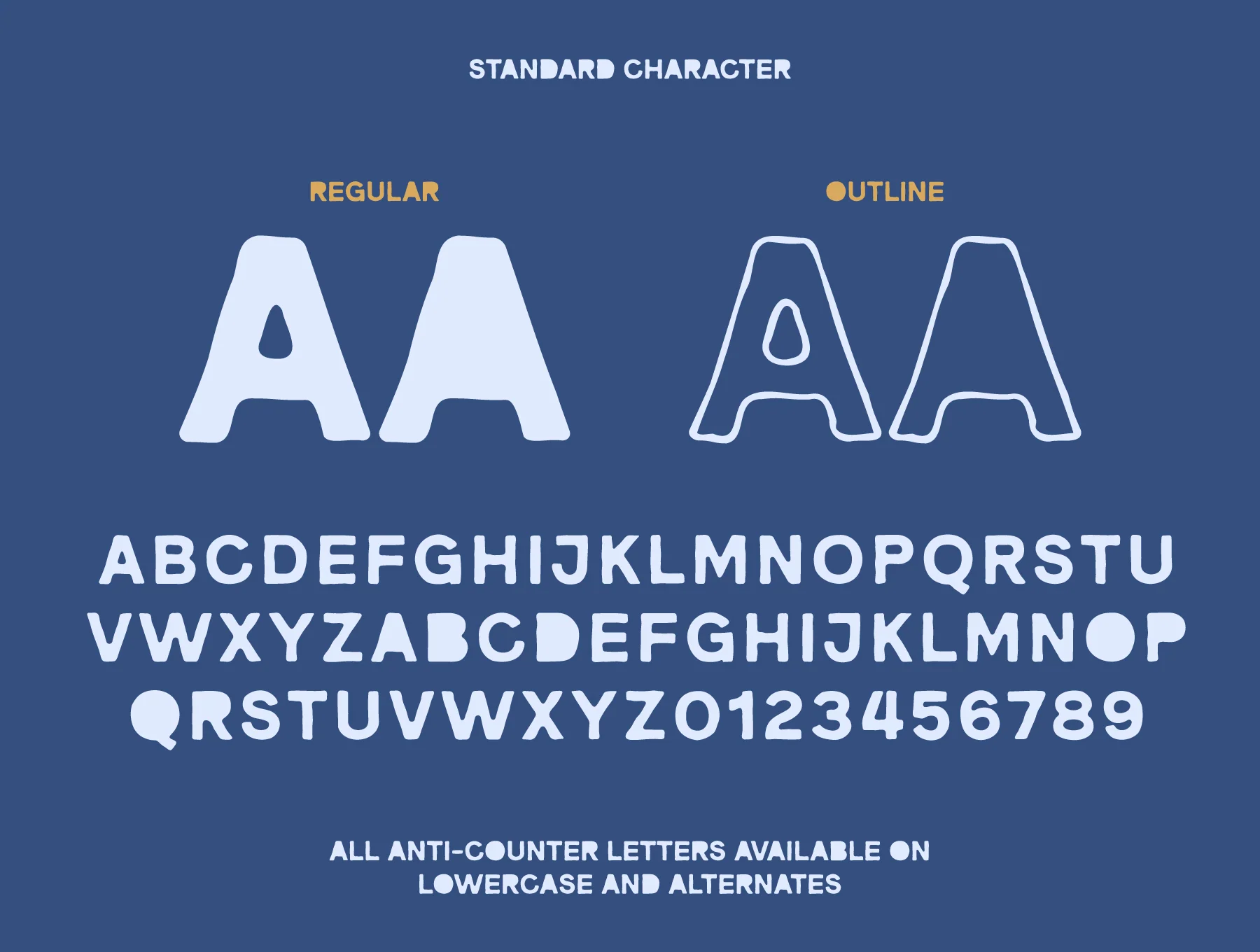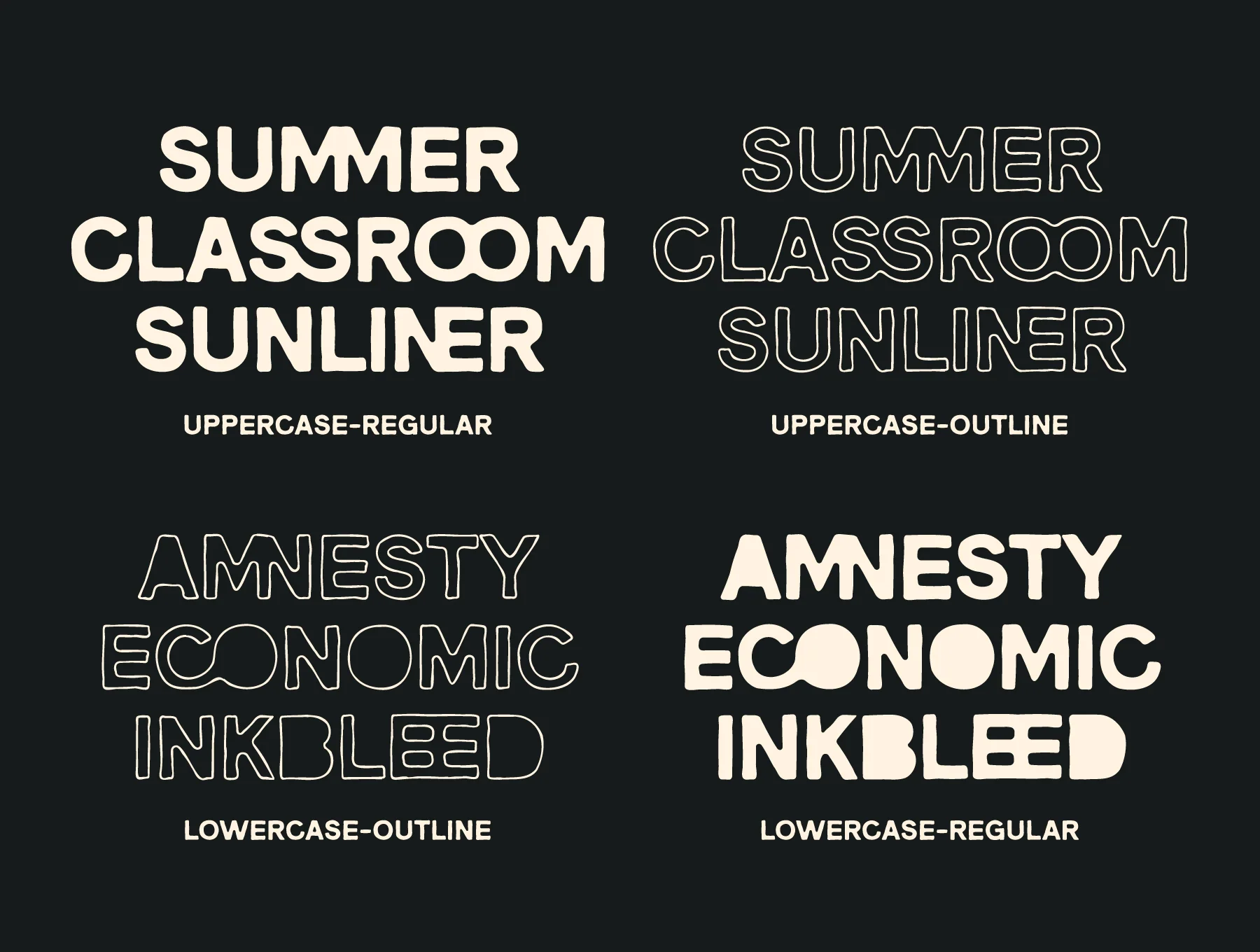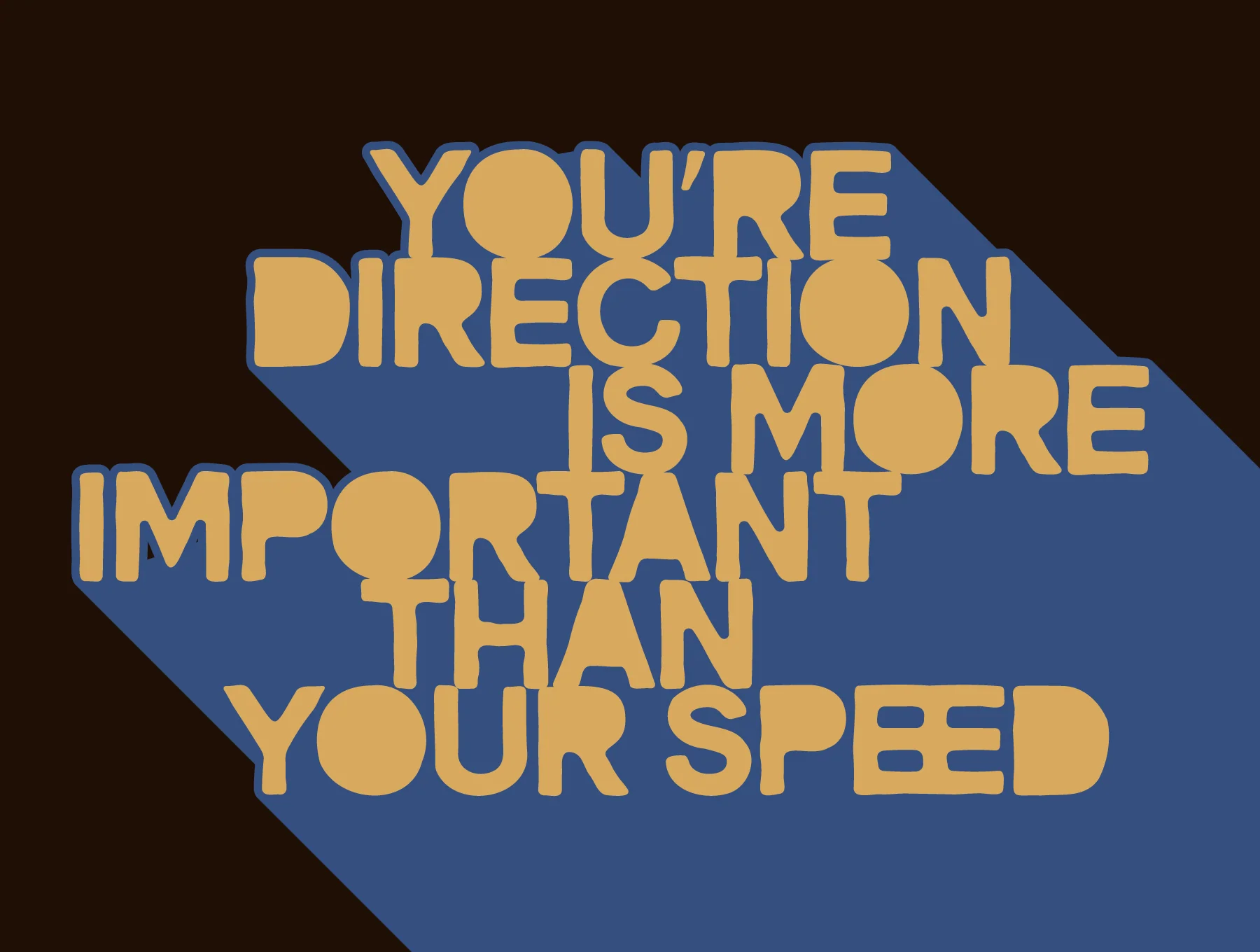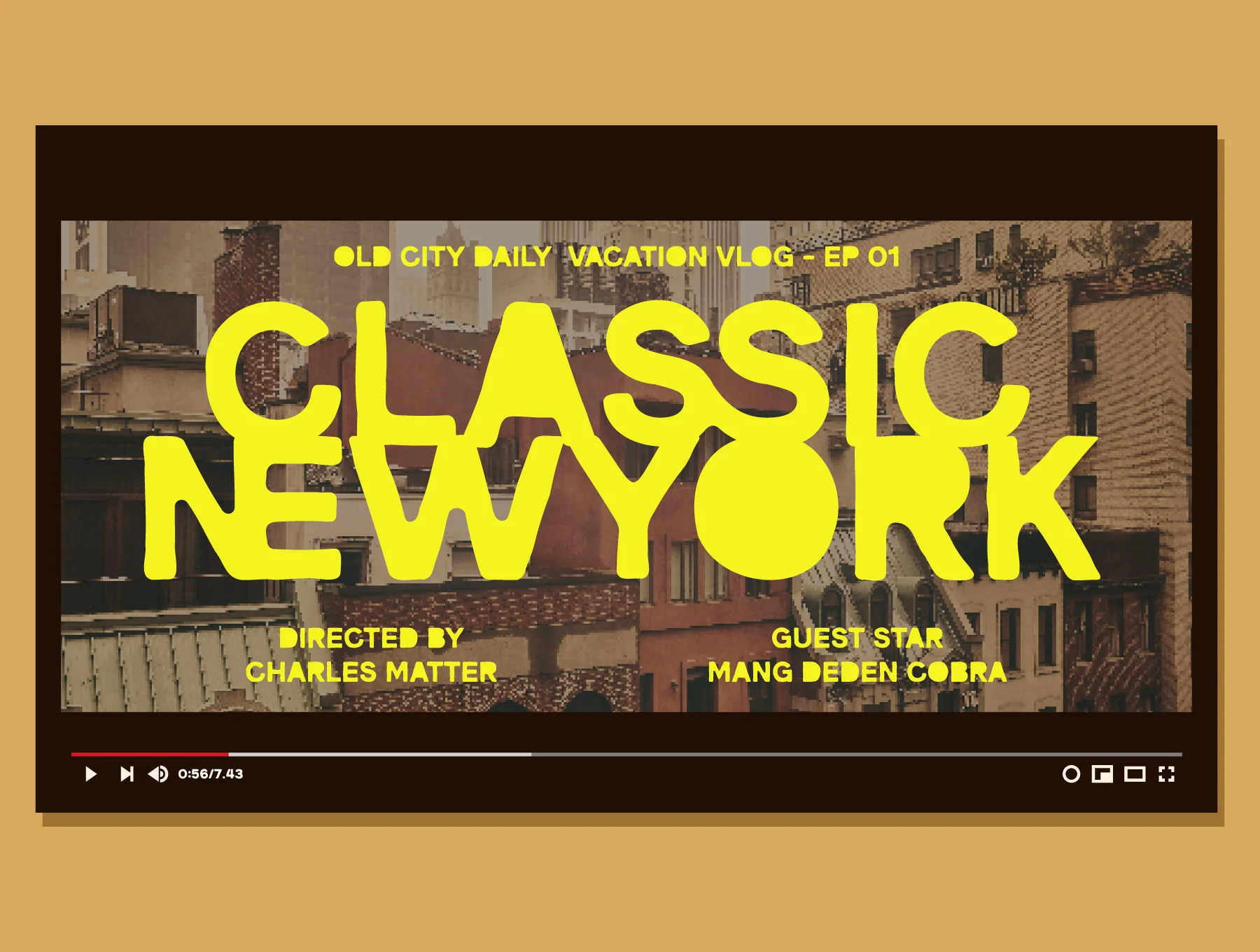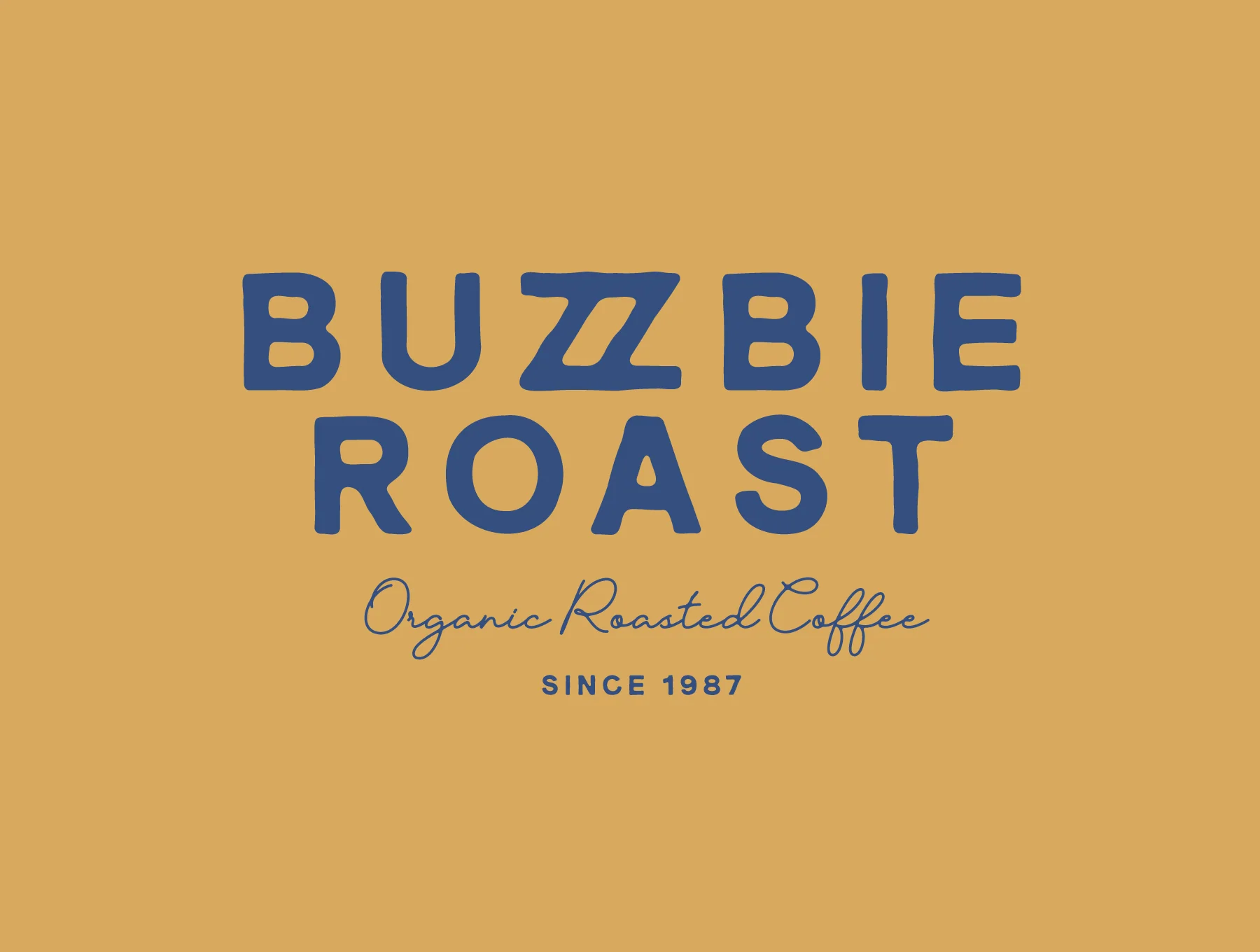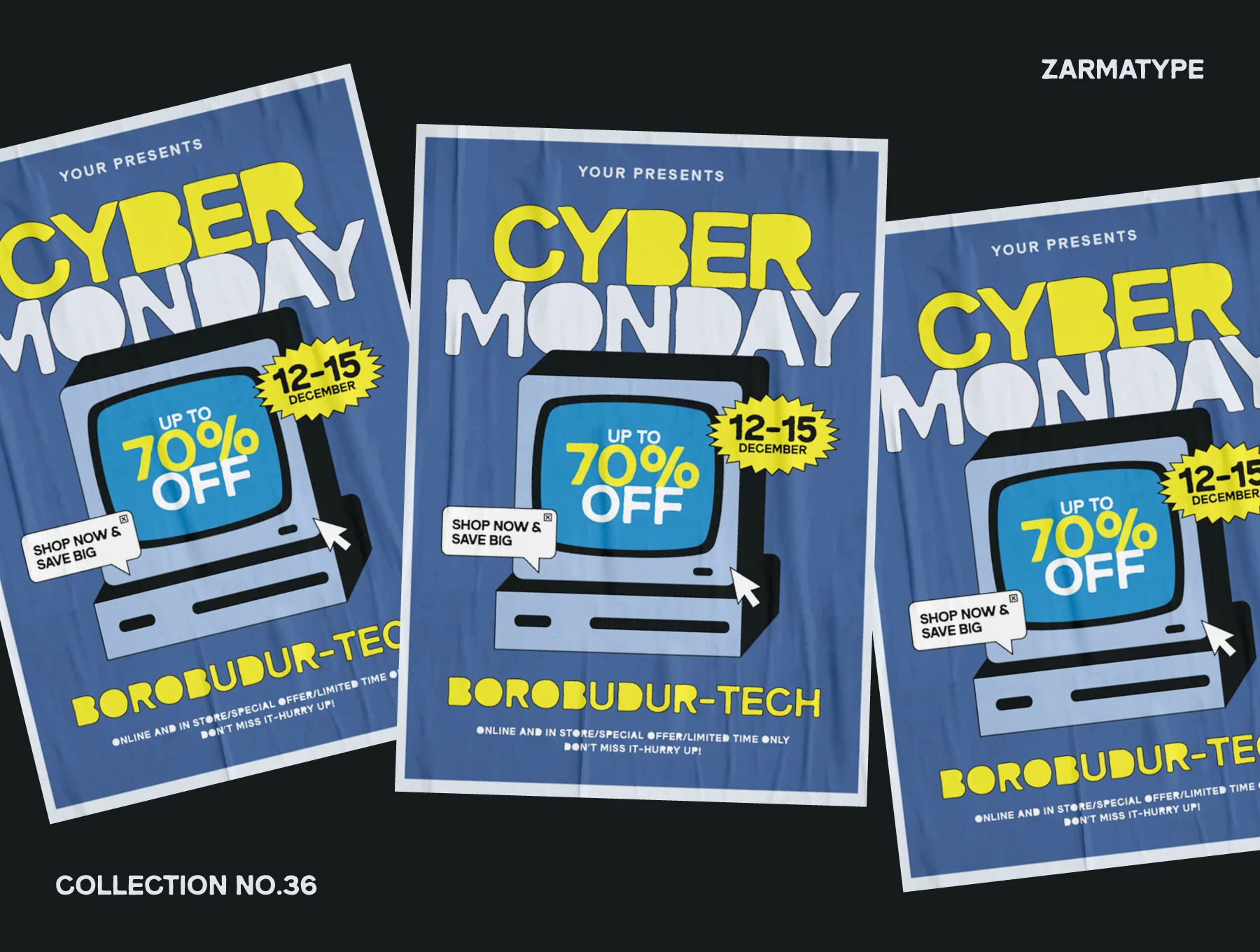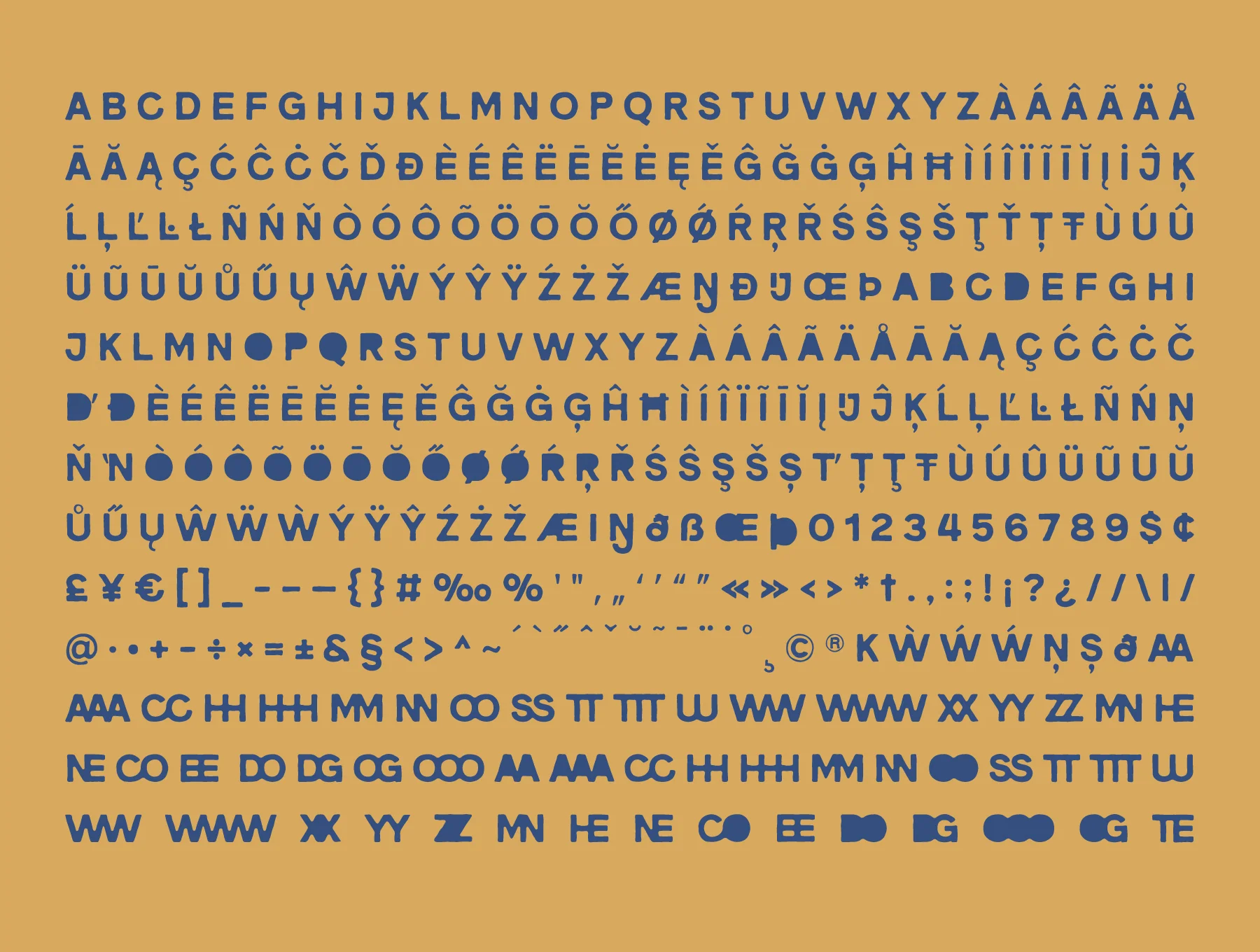
Benniter - Rough Hand Drawn Font
Distinct hand-sketched retro typeface featuring rugged textures
Uppercase style, standard and counterless forms, numerals, and punctuation
Built-in OpenType features
Benniter is a rugged hand-sketched sans serif font with retro character and organic texture. It includes regular and outline versions, distinctive ligatures, lowercase no-counter letters, OpenType support, and 400+ glyphs for 85+ languages. Great for branding, vintage posters, and nostalgic creative designs.